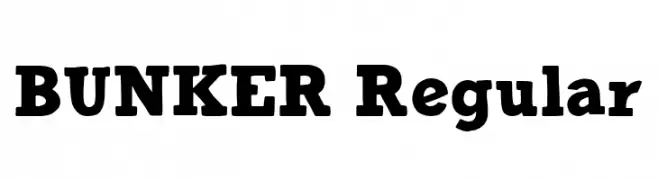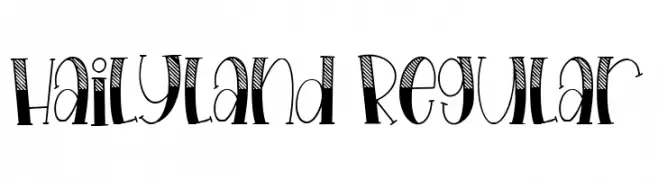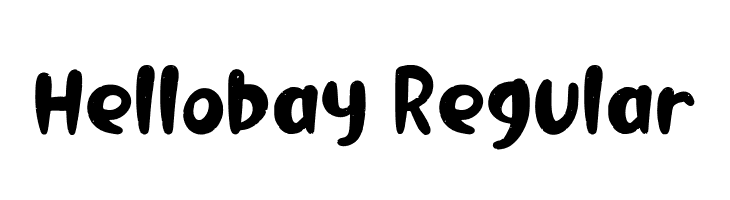
( Fonts by Creatype Studio )
A bold, playful font with a hand-drawn, whimsical style.
( Fonts by Creatype Studio )
A bold, playful handwritten font with thick, rounded strokes.
( Fonts by Creatype Studio )
A playful, bold font with a hand-drawn, whimsical style.
( Fonts by Creatype Studio )
A playful and decorative font with high contrast and whimsical design.
( Fonts by Creatype Studio )
A playful, bubbly font with a hand-drawn, whimsical style.
( Fonts by Creatype Studio )
A playful and whimsical font with dynamic strokes and charming irregularities.
A bold, brush-style font with dynamic and energetic strokes.
( Fonts by Alit Design )
A bold, robust font with thick strokes and a strong presence.
A playful handwritten font with smooth, rounded edges and consistent height.
A whimsical, handwritten font with a playful and casual style.